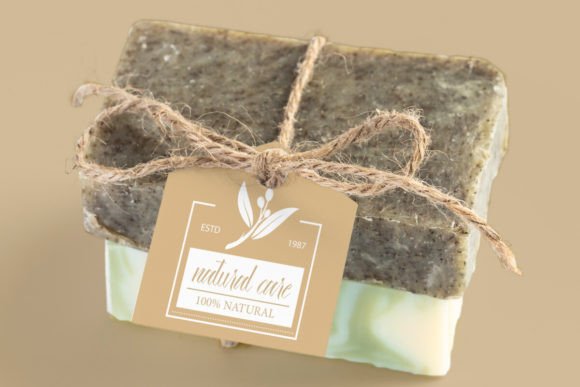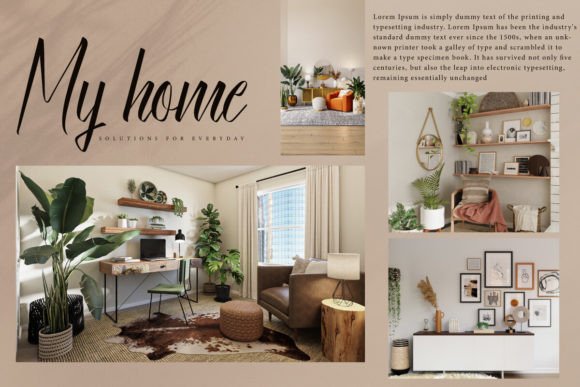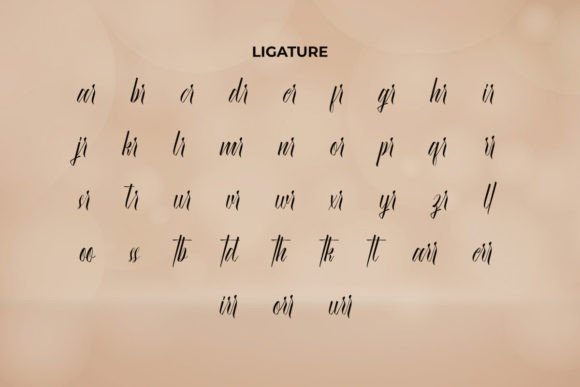
Introduction to Gathering Together Font Font
Fonts play a crucial role in design, and the Gathering Together Font font is a typeface that brings both character and versatility to any project. Whether you’re working on a branding project, a website, or a print design, the Gathering Together Font font offers a unique style that can elevate your work.
Gathering Together Font is a gorgeous signature calligraphy script font.
This font is made of beautiful lines that convey the luxury that will delight your eyes to produce glamour designs, such as apps, business cards, custom designs, invitations, labels, magazine catalogs, menus, posters, product packaging, quotes, title, watermark, website, and more .
Key Features of Gathering Together Font Font
Why Choose Gathering Together Font Font?
The Gathering Together Font font is more than just a typeface – it’s a design tool that helps you communicate your message with style and clarity. Its unique character set and versatile design make it suitable for a wide range of applications, from elegant invitations to bold headlines.
With its carefully crafted letterforms and balanced proportions, the Gathering Together Font font ensures readability and visual appeal across all mediums.
What makes Gathering Together Font font special?
The Gathering Together Font font stands out with its unique design, exceptional readability, and versatility across various design applications.